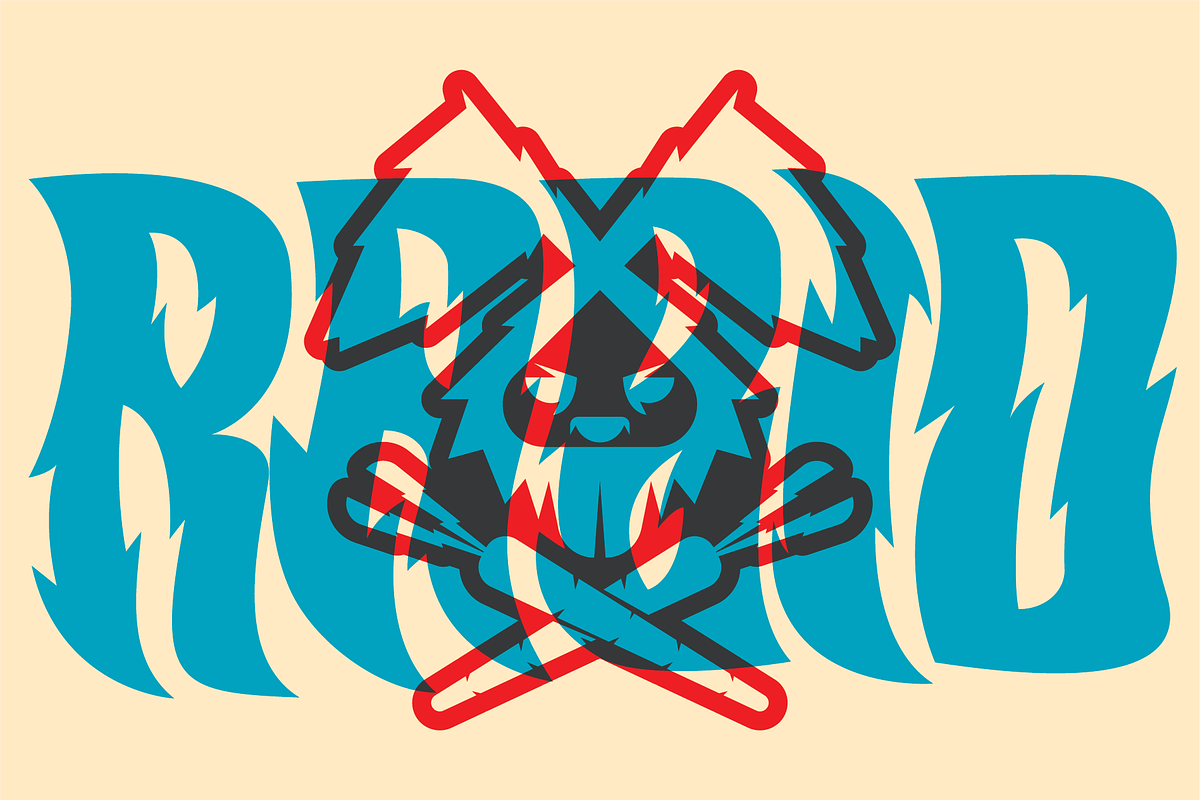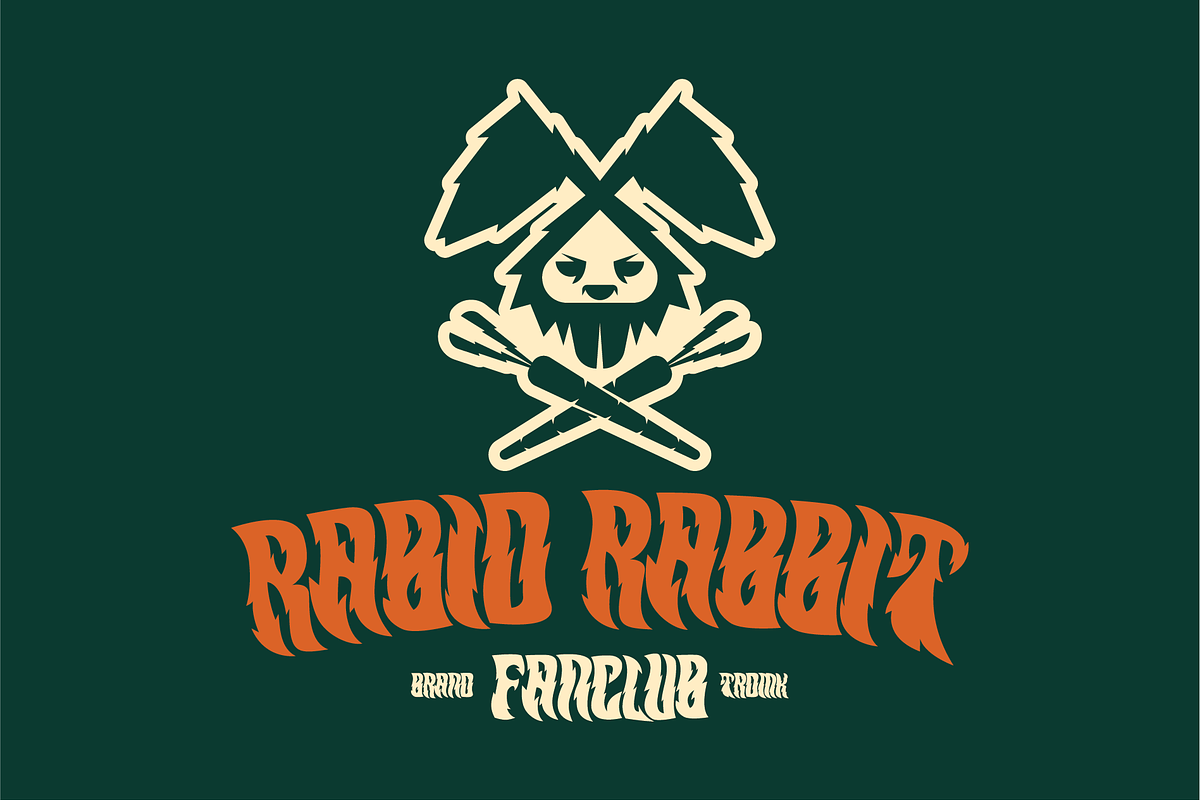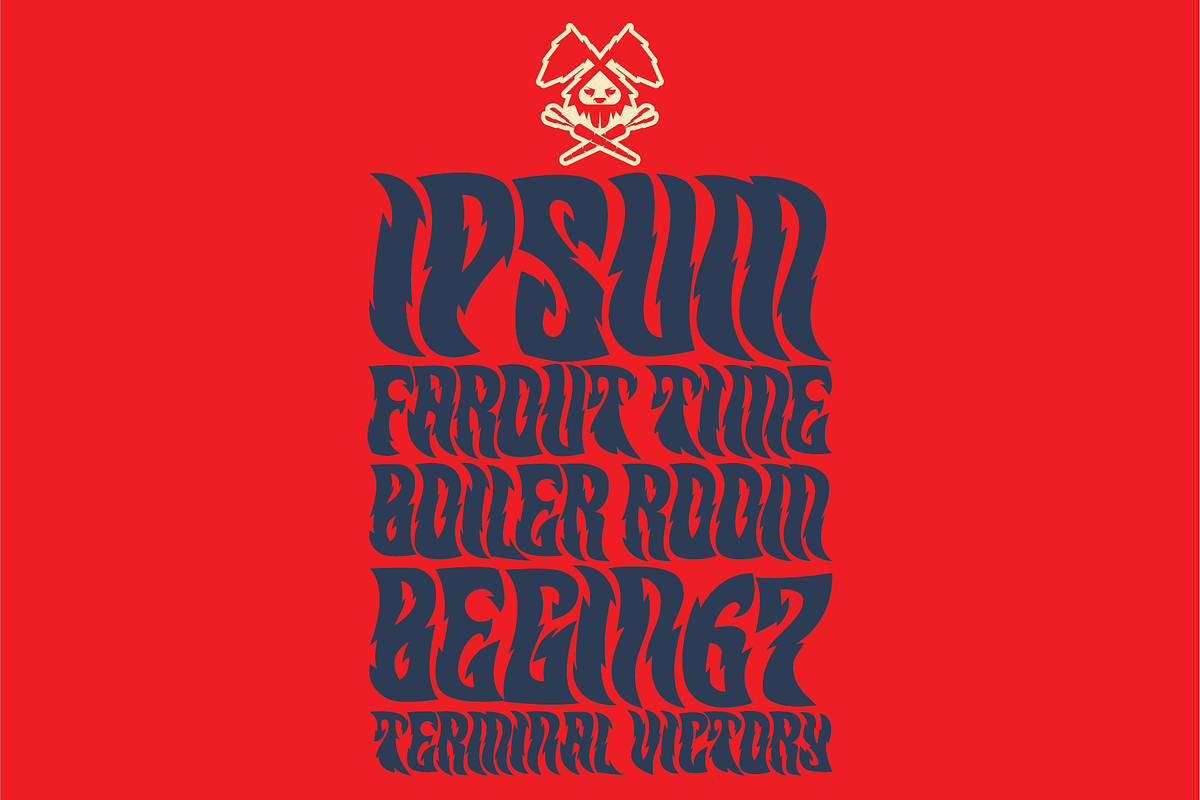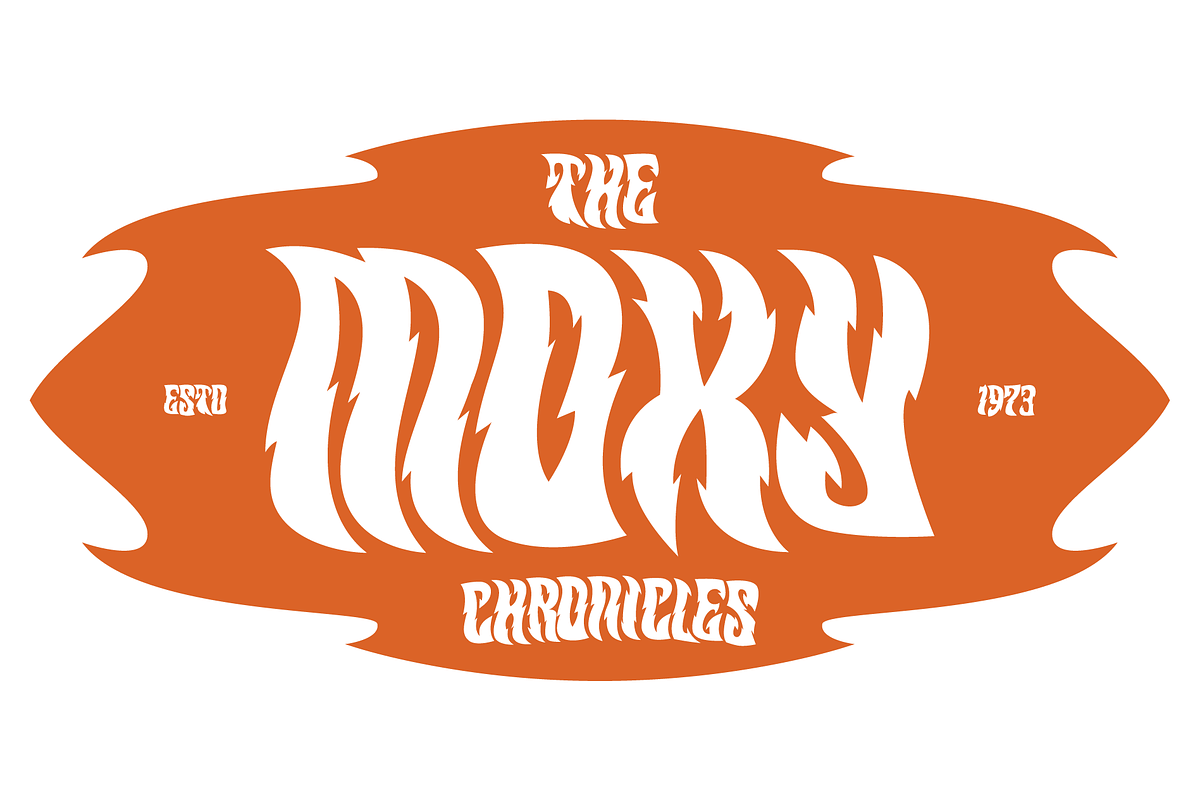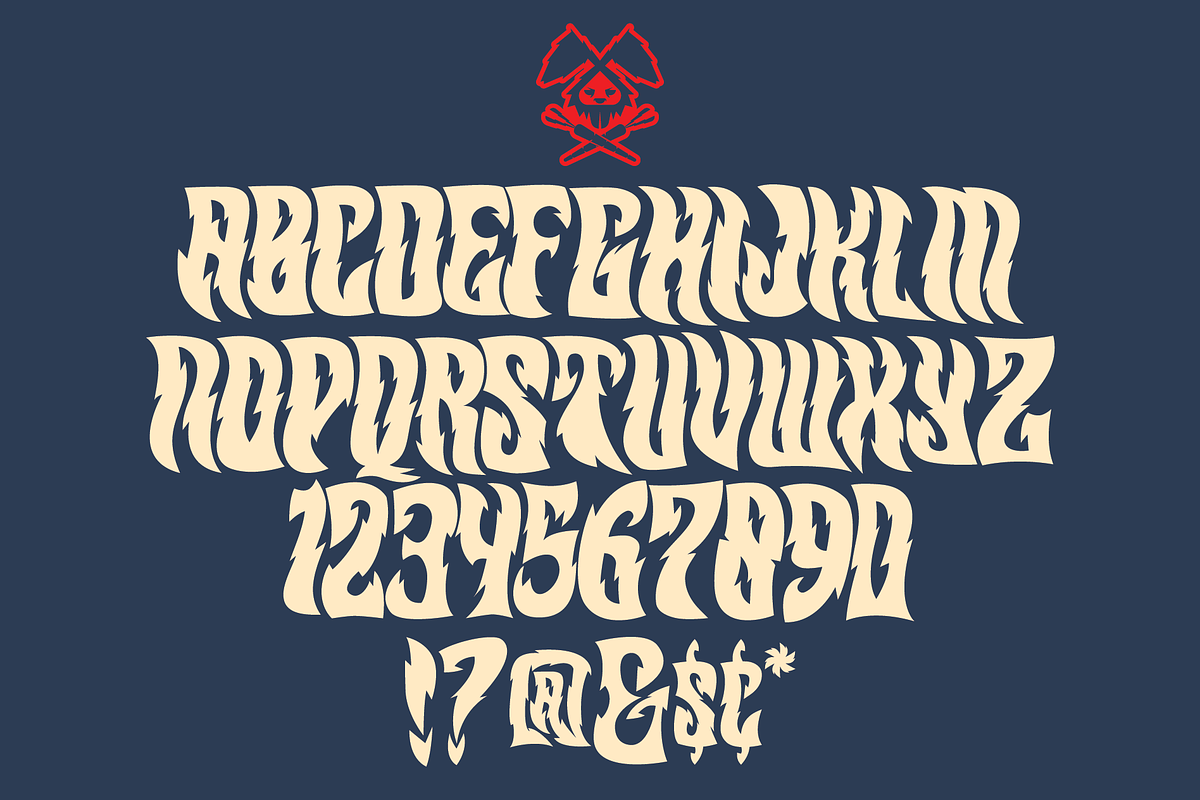
Penhorn Park | Wicked Display Font
A new font style from the Penhorn FOnt family. This style has a street edge and is an awesome font for your collection especially if you dig strong, bold in your face design. This font is perfect for poster design, fashion, logo design, editorial pieces, murals, collages, just about anything you need an in your face kick in the teeth design asset for. Enjoy